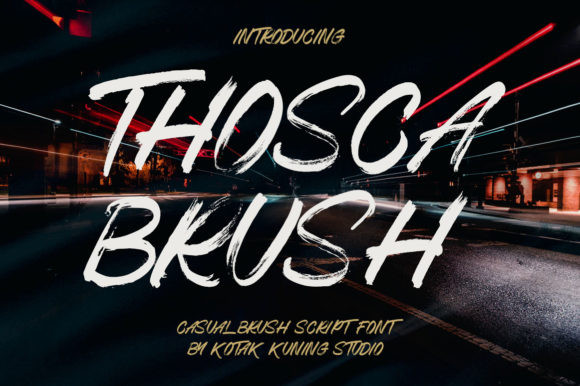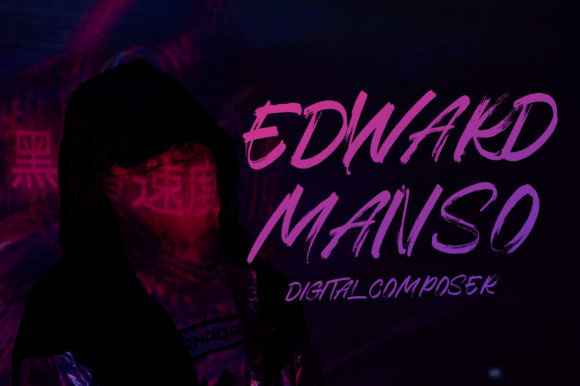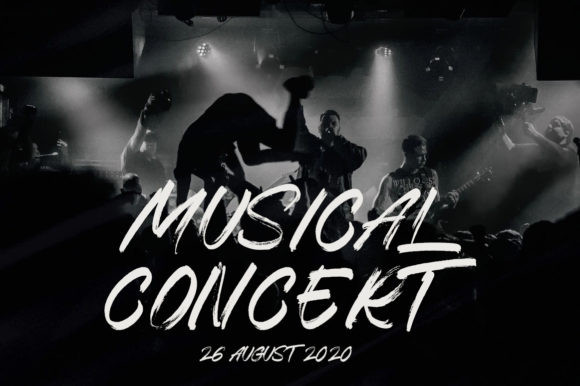
Thosca Font
Thosca Brush is a casual display font, created by using a dry brush pen. This font is the perfect fit for all of your logos, branding, social media, and crafty DIY projects.